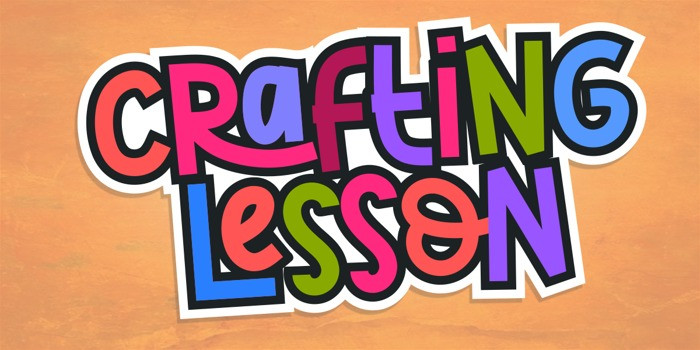
AMD Acknowledgement Font
AMD Acknowledgement font is a decorative font. It will be perfect for designing posters, logos, t-shirts and magazine prints, eye-catching typography and more.